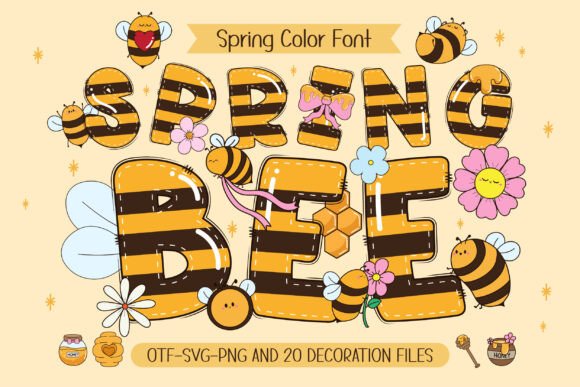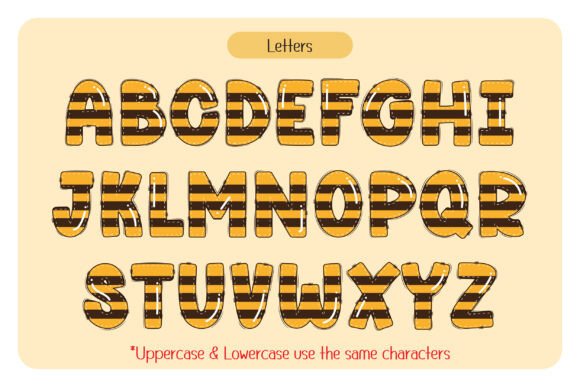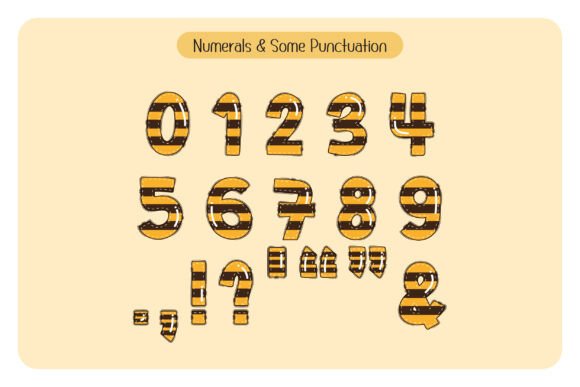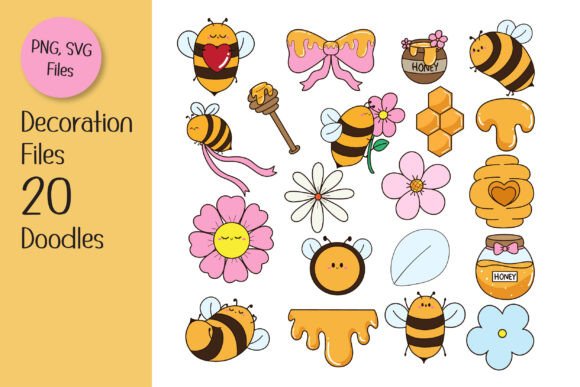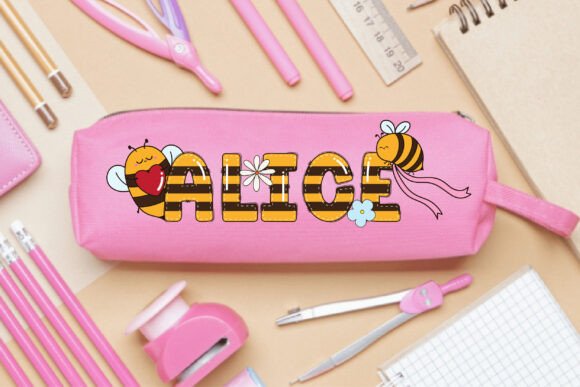
Spring Bee Font
Introducing “Spring Bee” a vibrant spring season font that captures the playful energy of bees and blossoming flowers. Designed with a charming bee pattern and complemented by 20 matching doodle cliparts featuring a cute, chubby bee alongside colorful flowers, this font is perfect for kid-friendly, funny, and cute designs. Ideal for creating captivating spring posters, day quotes, T-shirt designs, custom name projects, DIY crafts, and more, “Spring Bee” brings a buzzing, joyful vibe to all your creative projects.